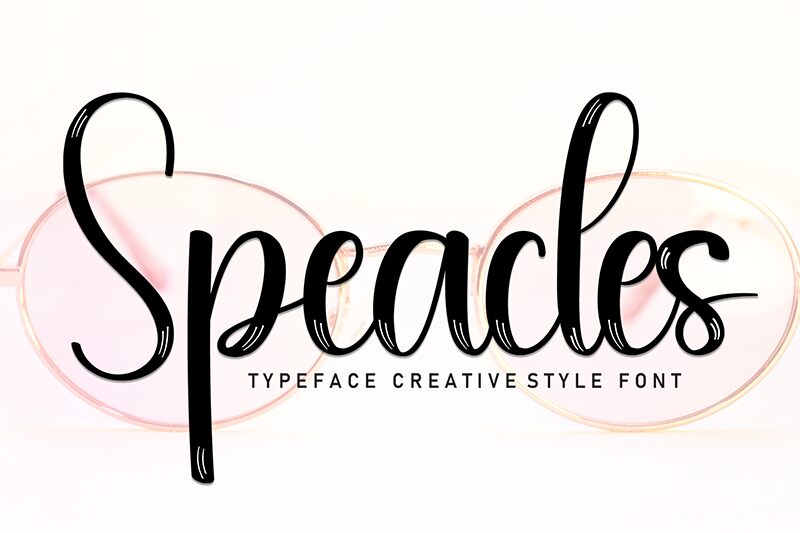
Speacles
Speacles font by Andi Moz is a free handwritten font designed as an expressive and flowing style in a fashionable design. The elegant character of the script typeface makes it pleasing for eye-catchy typography with both small and large fonts.
Use Speacles for designing creative stencils, signages, posters, packaging design, book covers, greeting cards or invitations. Additional interesting fields include crafting scrapbook artwork and on-channel packaging designs.